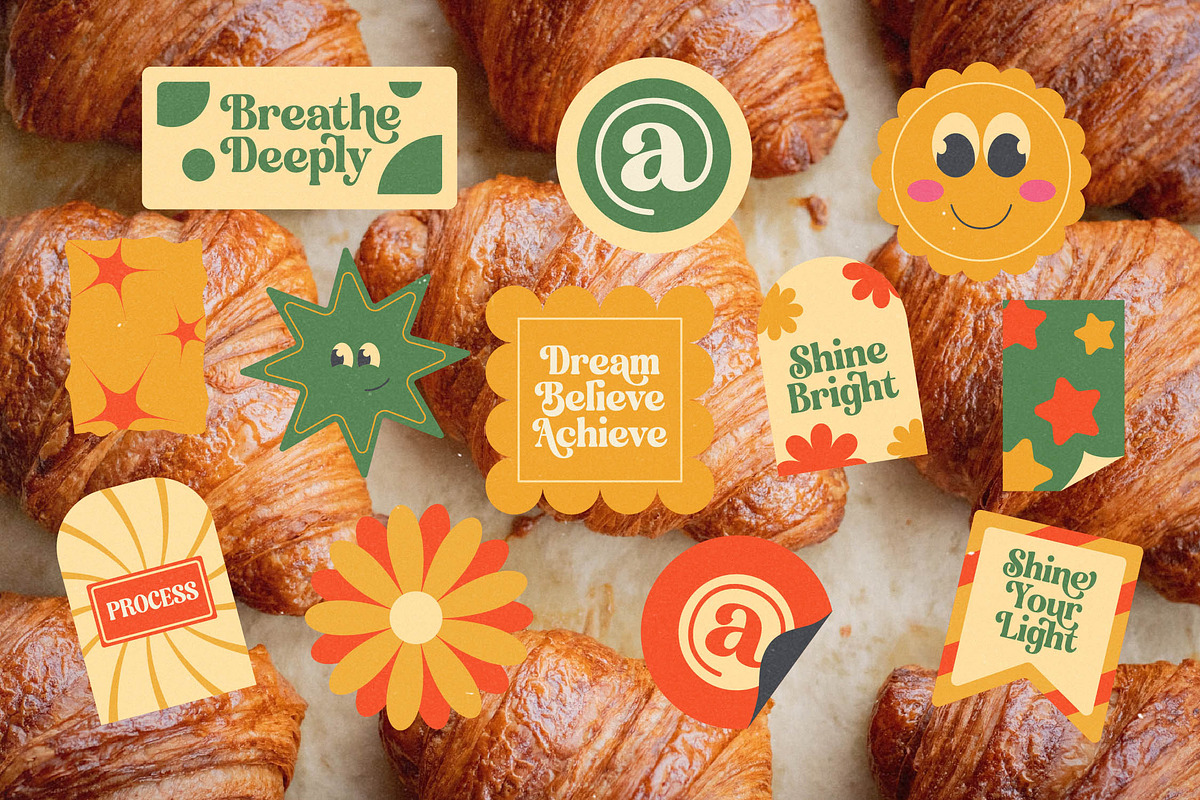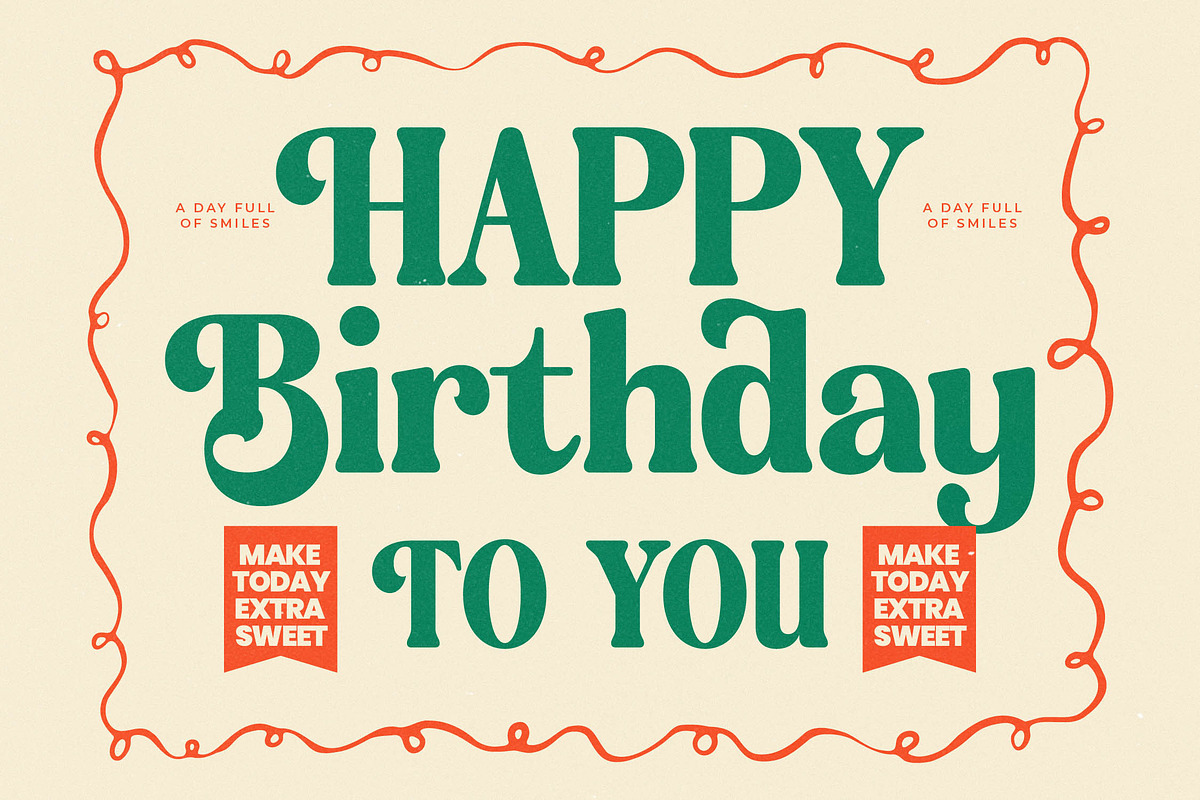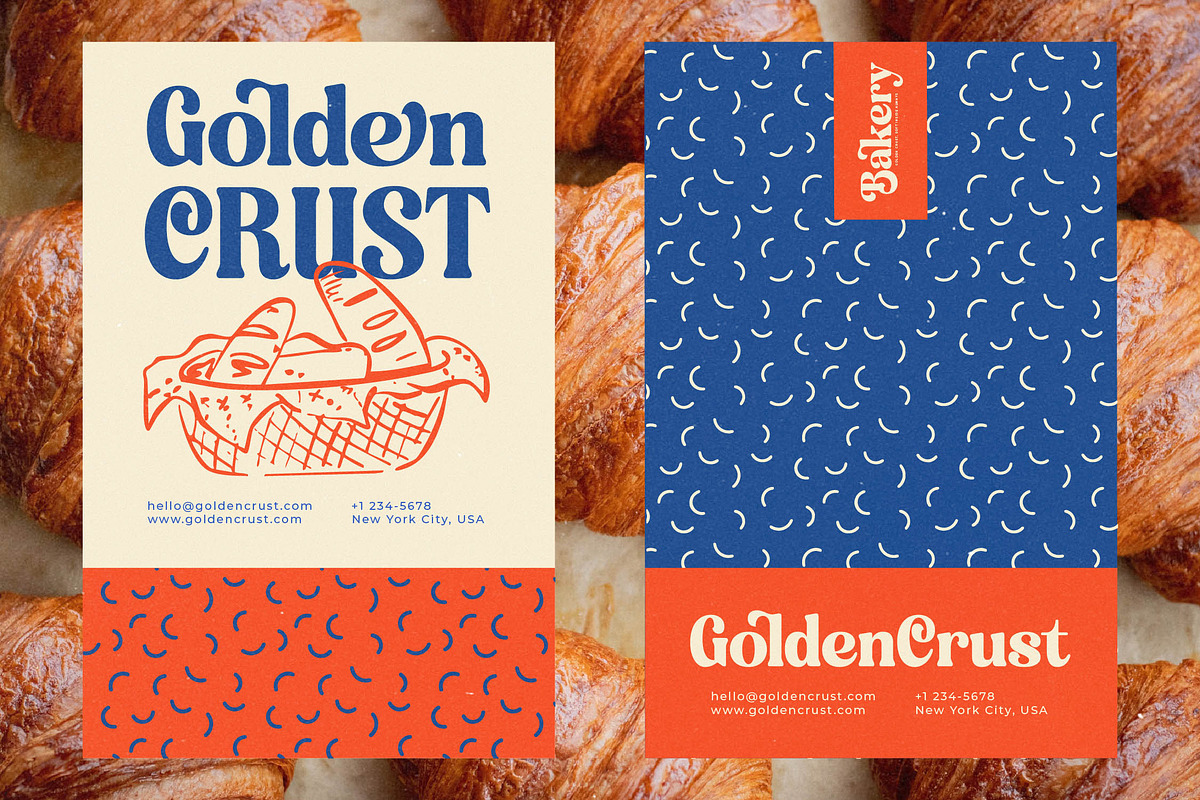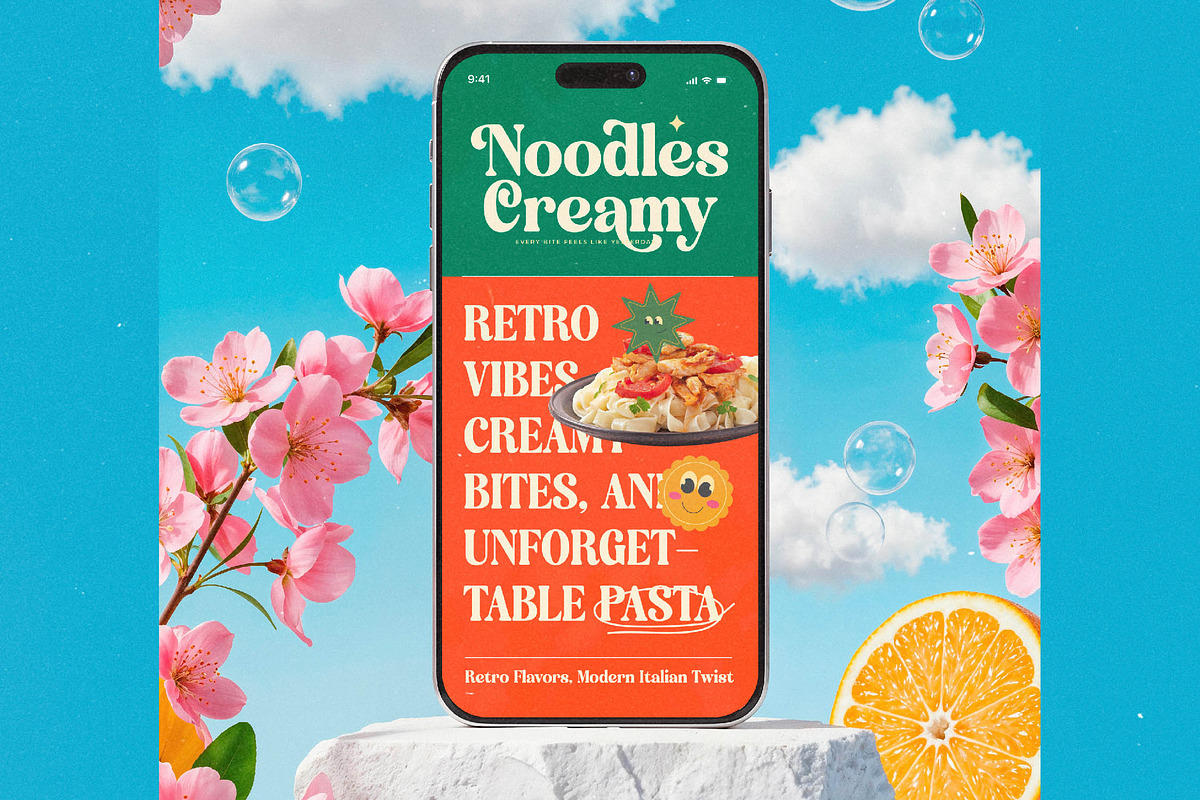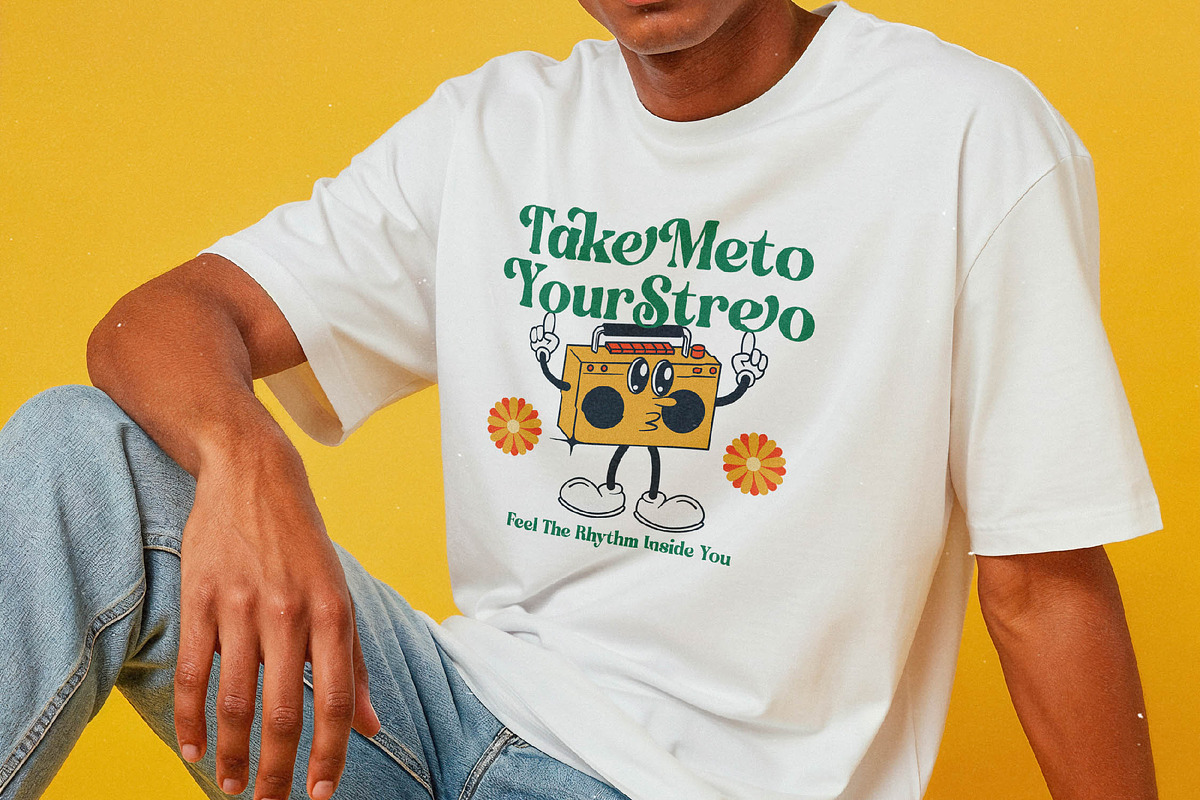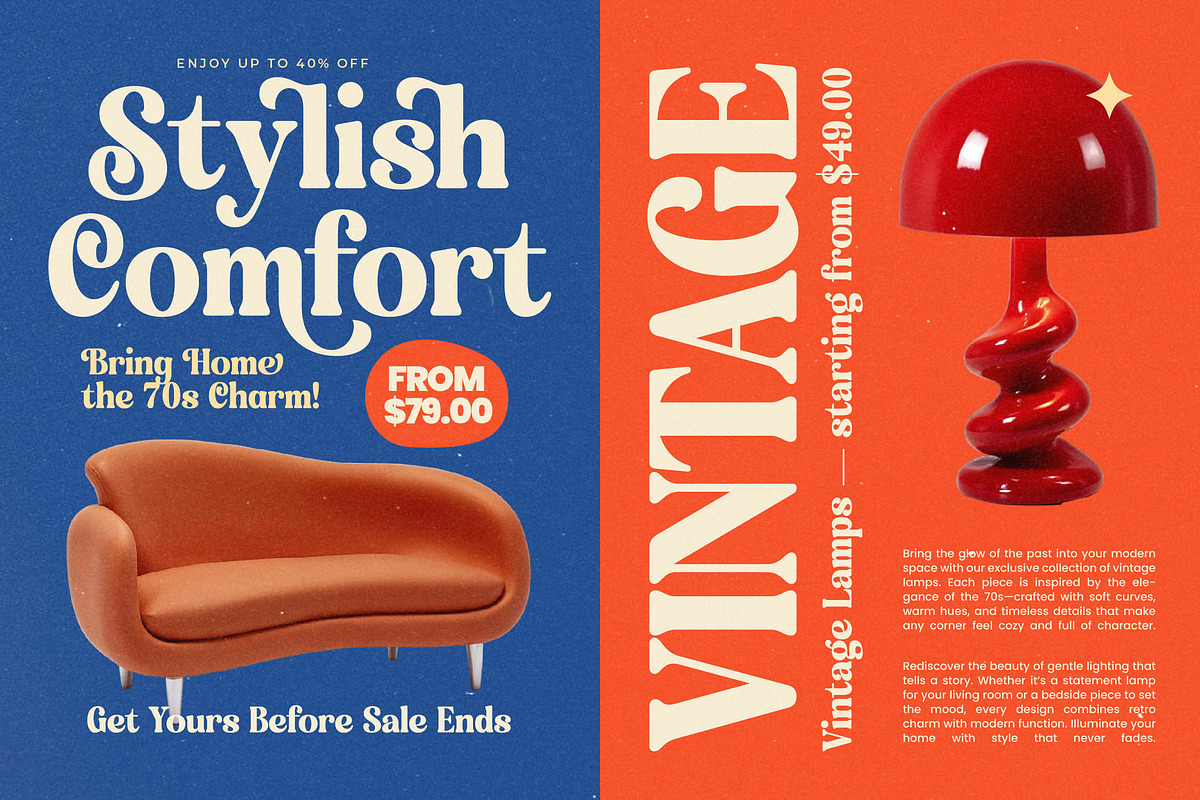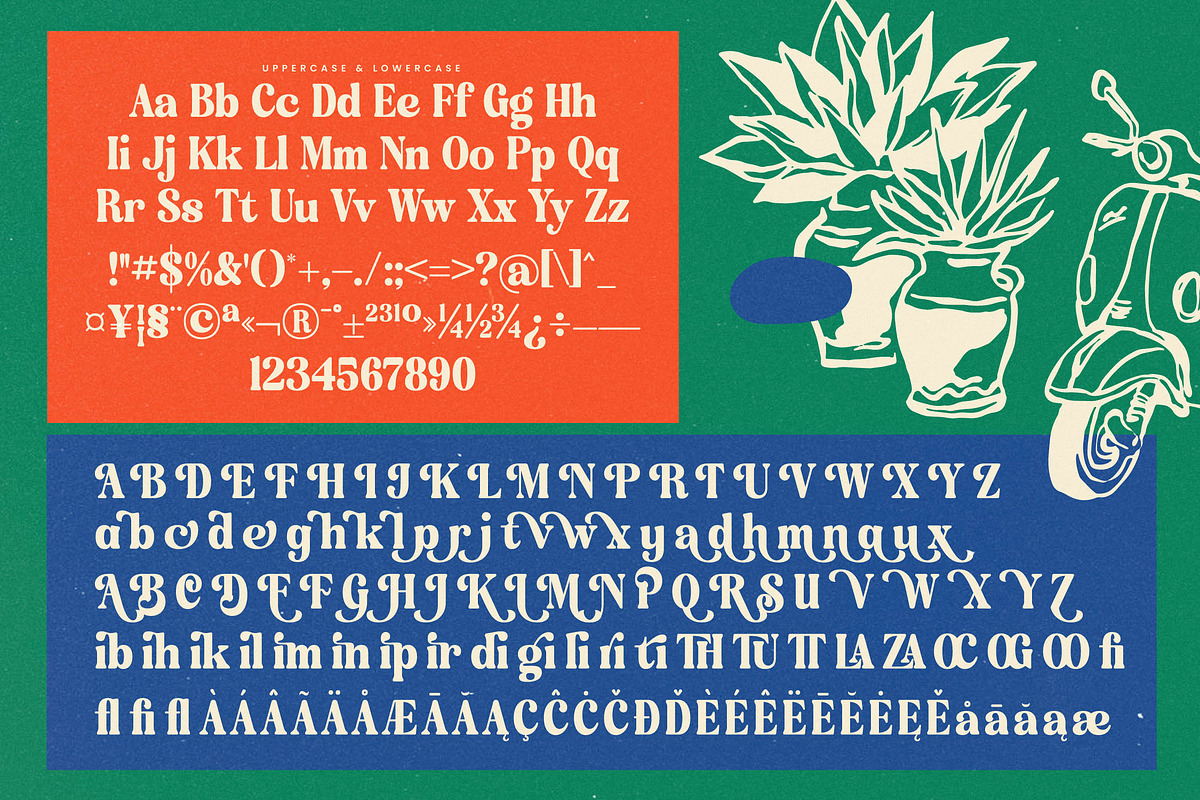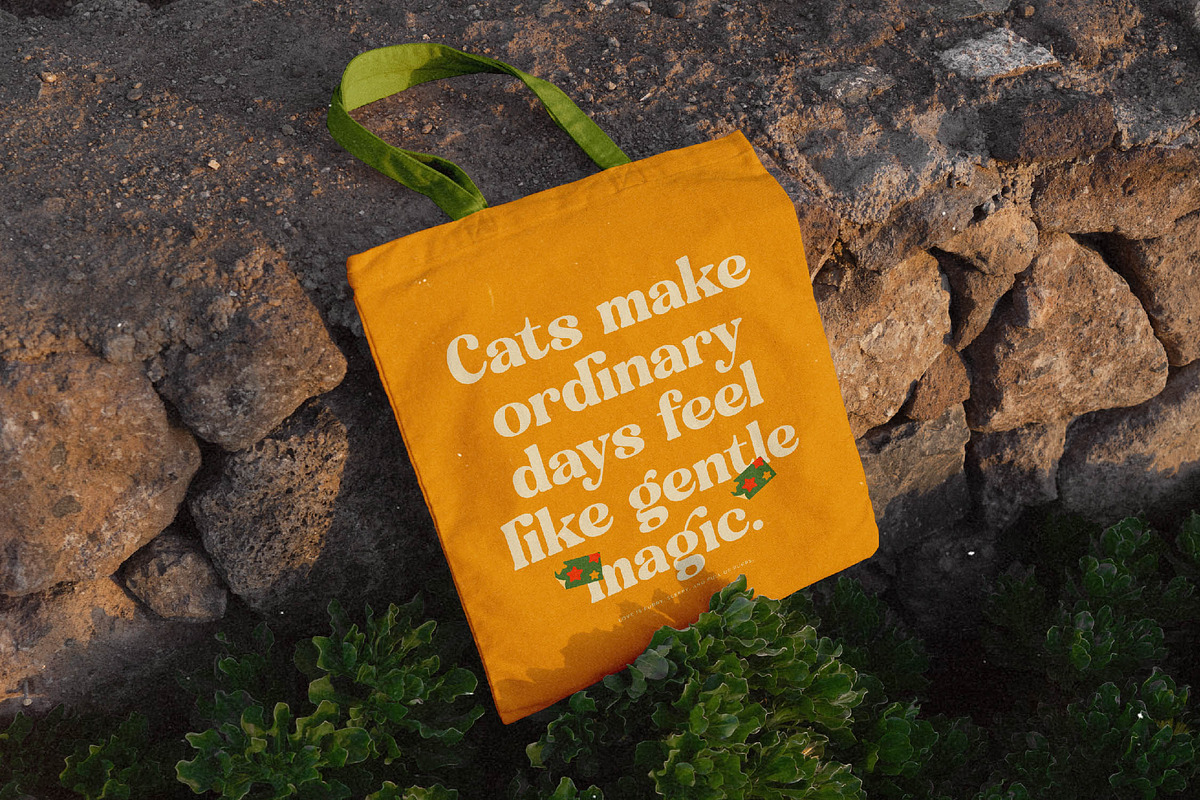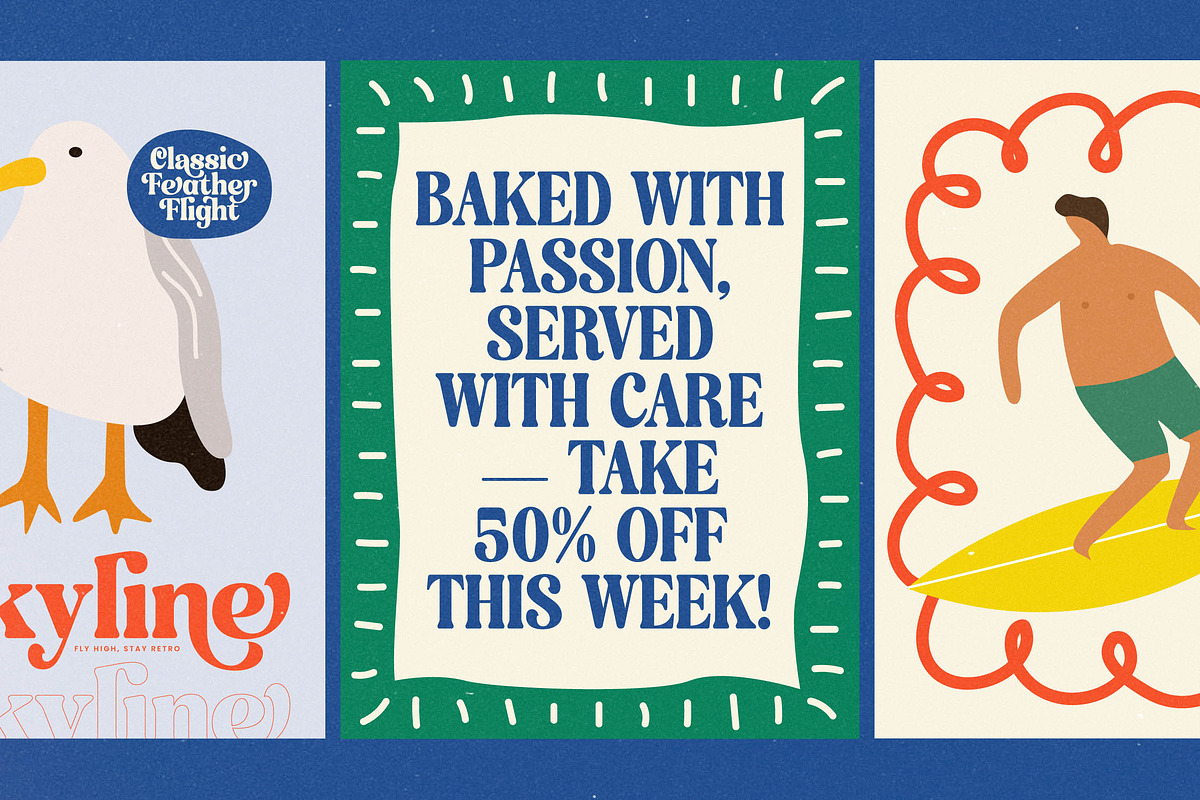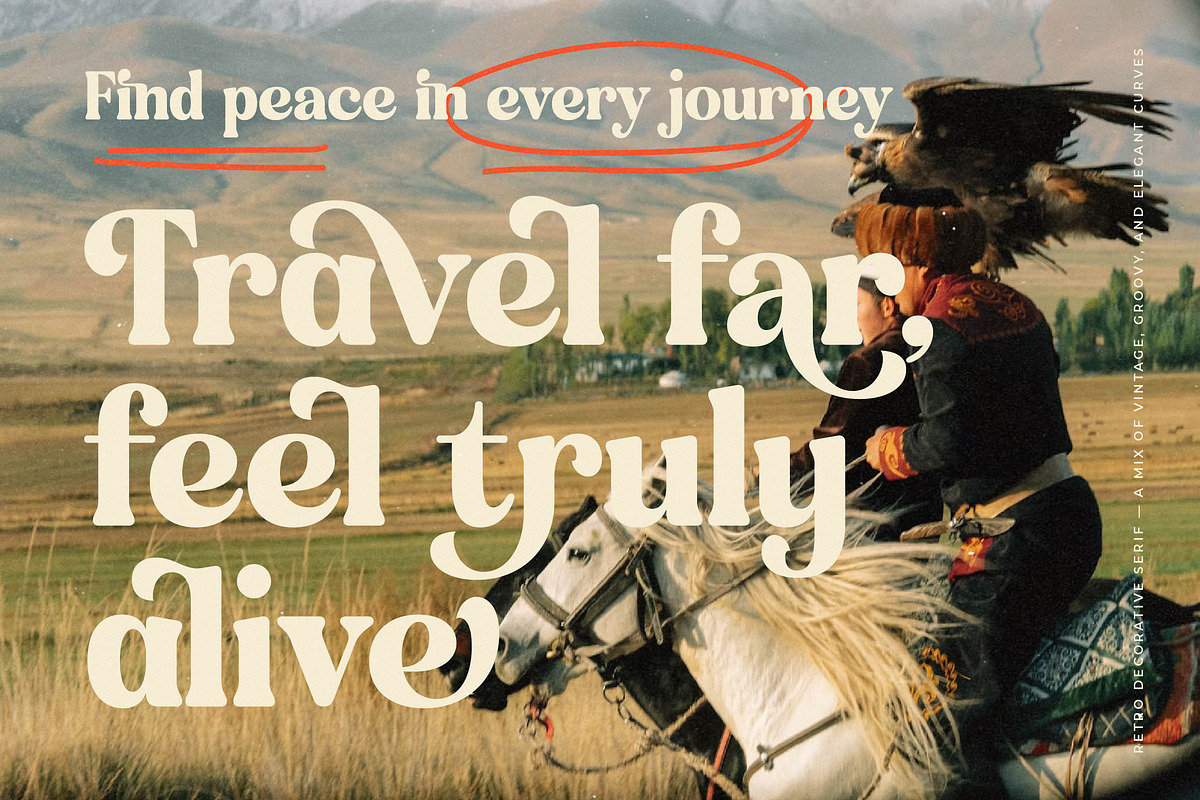
Classica Motion Retro Swash Serif
Step into a world where timeless elegance meets vintage charm with Classica Motion. This typeface is designed to breathe soul into every project, capturing the essence of classic beauty with a contemporary twist.
Inspired by the rhythmic curves of 1970s poster art and the adventurous spirit of open-road travels, this font evokes memories of sunset rides on a vintage scooter. It draws from a golden era of design where every stroke was intentional and every letterform told a story of freedom and sophistication.
This modern serif display balances bold presence with delicate refinement, making it a premier choice for luxury typography. Its high-contrast serif details ensure that every word commands attention, providing an editorial font quality that delivers a significant branding impact across digital and print mediums.
Perfectly aligned with the current modern serif trend, this typeface fulfills the growing demand for editorial display fonts that offer more than just legibility. By leaning into character-driven typography, it allows designers to tap into a nostalgic yet fresh aesthetic that resonates with today's style-conscious audiences.
Transform your next logo design or comprehensive branding identity with a font that transitions seamlessly from high-end editorial layouts to boutique packaging. Whether it is for a romantic wedding invitation or a bold fashion lookbook, the versatile nature of these letters ensures a professional and stylish finish.
Unlock limitless creative possibilities with a rich set of ligatures and creative alternates that allow for custom-tailored layouts. The inclusion of decorative swashes provides an extra layer of flair, while full multilingual support and international characters make it a truly global tool for any designer's kit.
Numerals
Punctuations (OpenType Standard)
Accents (Multilingual Characters)
Ligatures and Alternative Style Stylistic Set